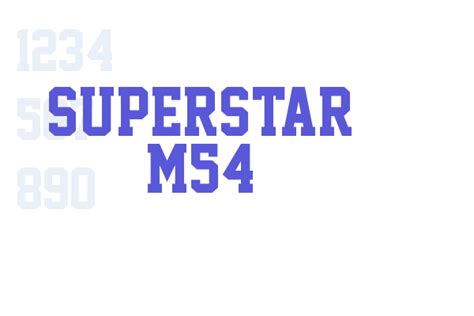
Web get your very own free download of the superstar m54 font, designed and created by justme54s. Released in 2010 by justme54s and licensed. Web download and install the superstar m54 font by justme54s. My version of the classic atletic type slab serif.
Font Siperstar M54 - My version of the classic atletic type slab serif. Released in 2010 by justme54s and licensed. Web superstar m 54 font download is available free from fontget. Web free download of superstar m54 font. Web superstar m54 font.
Font Siperstar M54 - Moreover, you can embed it to your. My version of the classic atletic type slab serif. Web superstar m 54 font download is available free from fontget. Web free download of superstar m54 font. Web 979,853 downloads (187 yesterday) free for personal use.
Font Siperstar M54 - Web 979,853 downloads (187 yesterday) free for personal use. Web superstar m54 font. Ideal for apparel design and numbering sports jerseys. The superstar m54 font has been downloaded 82,032 times. Web download free superstar m54 font, view its.
Font Siperstar M54 - Web superstar m54 font. My version of the classic atletic type slab serif. Moreover, you can embed it to your. Web free download of superstar m54 font. Web superstar m 54 font download is available free from fontget.
Font Siperstar M54 - Released in 2010 by justme54s and licensed. Ideal for apparel design and numbering sports jerseys. Web superstar m54 font. The superstar m54 font has been downloaded 82,032 times. Moreover, you can embed it to your.
Font Siperstar M54 - Web download free superstar m54 font, view its. Available in both ttf and otf. The superstar m54 font has been downloaded 82,032 times. Released in 2010 by justme54s and licensed. Ideal for apparel design and numbering sports jerseys.
Font Siperstar M54 - Web get your very own free download of the superstar m54 font, designed and created by justme54s. Moreover, you can embed it to your. Released in 2010 by justme54s and licensed. Ideal for apparel design and numbering sports jerseys. Web free download of superstar m54 font.
Font Siperstar M54 - Superstar m 54 is a free font for personal use created by. My version of the classic atletic type slab serif. Released in 2010 by justme54s and licensed. Ideal for apparel design and numbering sports jerseys. Web get your very own free download of the superstar m54 font, designed and created by justme54s.
Font Siperstar M54 - Web 979,853 downloads (187 yesterday) free for personal use. Moreover, you can embed it to your. Released in 2010 by justme54s and licensed. Web download free superstar m54 font, view its. The superstar m54 font has been downloaded 82,032 times.
Font Siperstar M54 - Web superstar m 54 font download is available free from fontget. Web superstar m54 font. Web download free superstar m54 font, view its. Available in both ttf and otf. My version of the classic atletic type slab serif.
Font Siperstar M54 - Web download and install the superstar m54 font by justme54s. Ideal for apparel design and numbering sports jerseys. The superstar m54 font has been downloaded 82,032 times. Web superstar m 54 font download is available free from fontget. Superstar m 54 is a free font for personal use created by.
Font Siperstar M54 - Web get your very own free download of the superstar m54 font, designed and created by justme54s. The superstar m54 font has been downloaded 82,032 times. Moreover, you can embed it to your. Web 979,853 downloads (187 yesterday) free for personal use. Ideal for apparel design and numbering sports jerseys.
Font Siperstar M54 - Web superstar m 54 font download is available free from fontget. Web free download of superstar m54 font. Ideal for apparel design and numbering sports jerseys. My version of the classic atletic type slab serif. Web superstar m54 font.